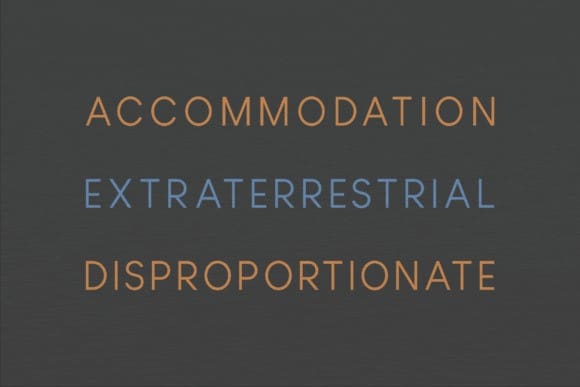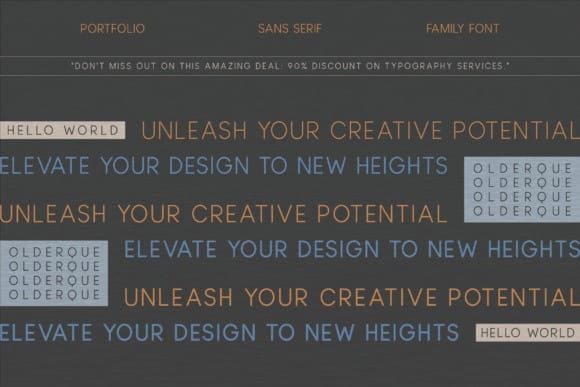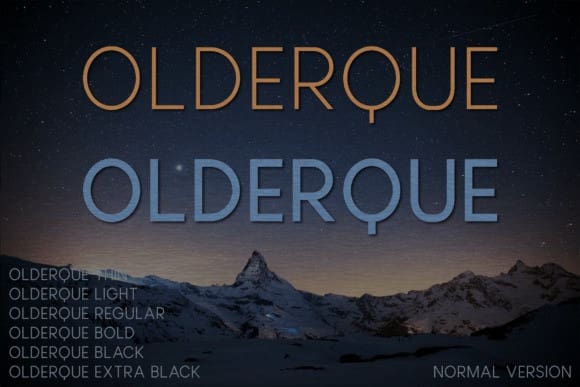
Olderque Font Family
Olderque font family – an amalgamation of minimalistic elegance at its finest. Consisting of five uniquely distinct weight variations, this sans serif font compilation immaculately highlights the fine balance between modern sophistication and luxurious indulgence. Meticulously designed with unerring attention to detail, it’s a font that seamlessly uplifts the aesthetic quotient of any project it’s applied to, be it a glossy magazine, an eye-catching logo, or an engaging film poster. Experience the uncomplicated sophistication with Olderque and allow your designs to radiate a timeless allure. Embark on the journey of design perfection with the Olderque font family at your disposal.